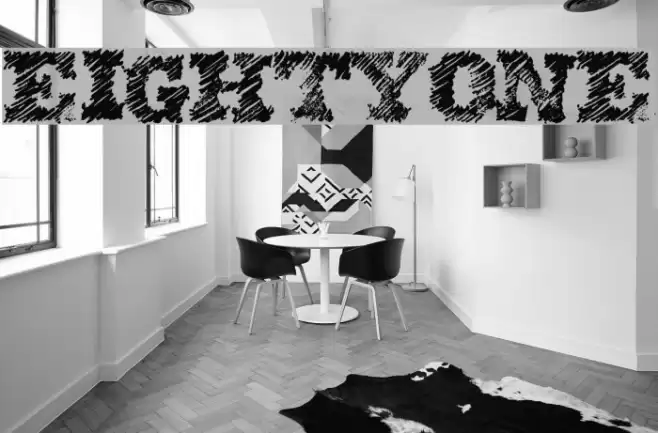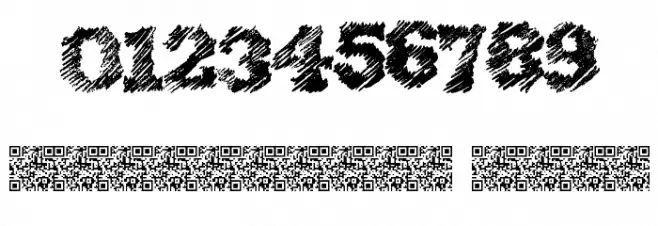
EightyOne Font
EightyOne Description
This font features a bold, textured style with a unique, hand-drawn appearance. Each character is filled with a dense pattern of diagonal lines, giving it a rough, sketch-like texture. The uppercase and lowercase letters maintain a consistent design, with a slightly condensed width that enhances its boldness. The numbers and special characters follow the same textured pattern, ensuring uniformity across all glyphs. This font's distinctive style makes it stand out, ideal for creative and artistic projects where a strong visual impact is desired.
A bold, textured font with a hand-drawn, sketch-like appearance from Distorted Eroded fonts.